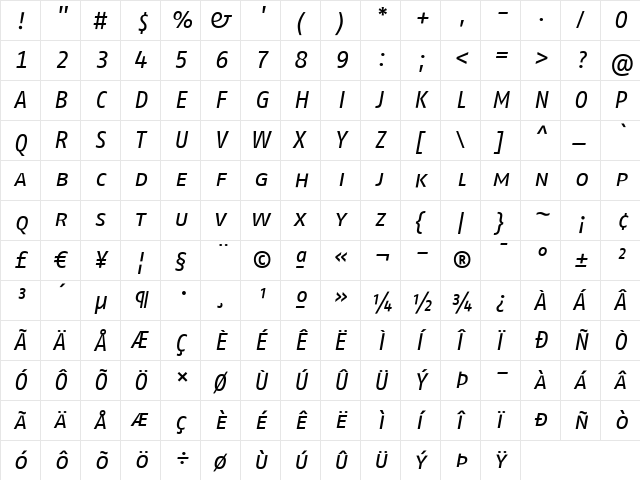
FagoNoTf Italic Font Preview
FagoNoTf Italic
FagoNoTf Italic Font Details
Design Context for FagoNoTf Typeface
FagoNoTf takes a measured approach to typography — its balanced proportions and neutral character make it a reliable workhorse for both digital and print work. Its italic angle brings a sense of urgency and motion to the letterforms.
Pro Tip: Use FagoNoTf for emphasis, pull quotes, and subheadings where its slanted energy can add rhythm to the layout.